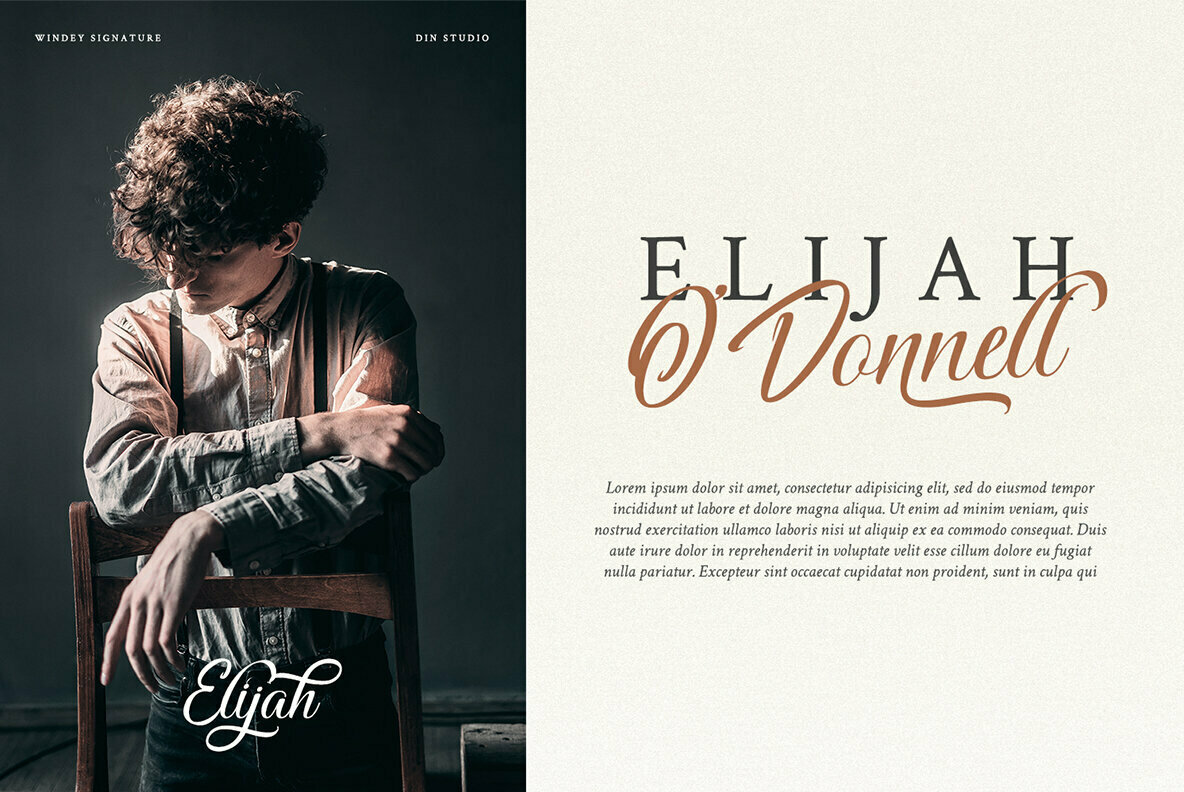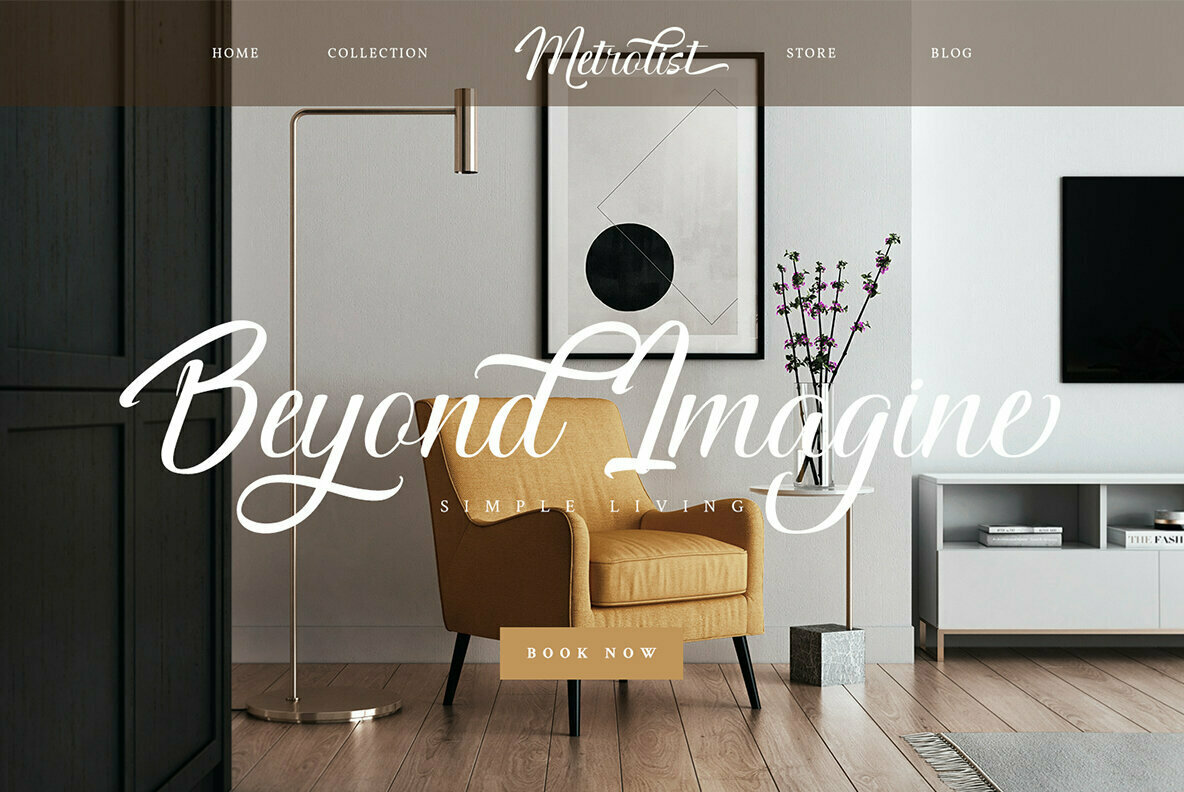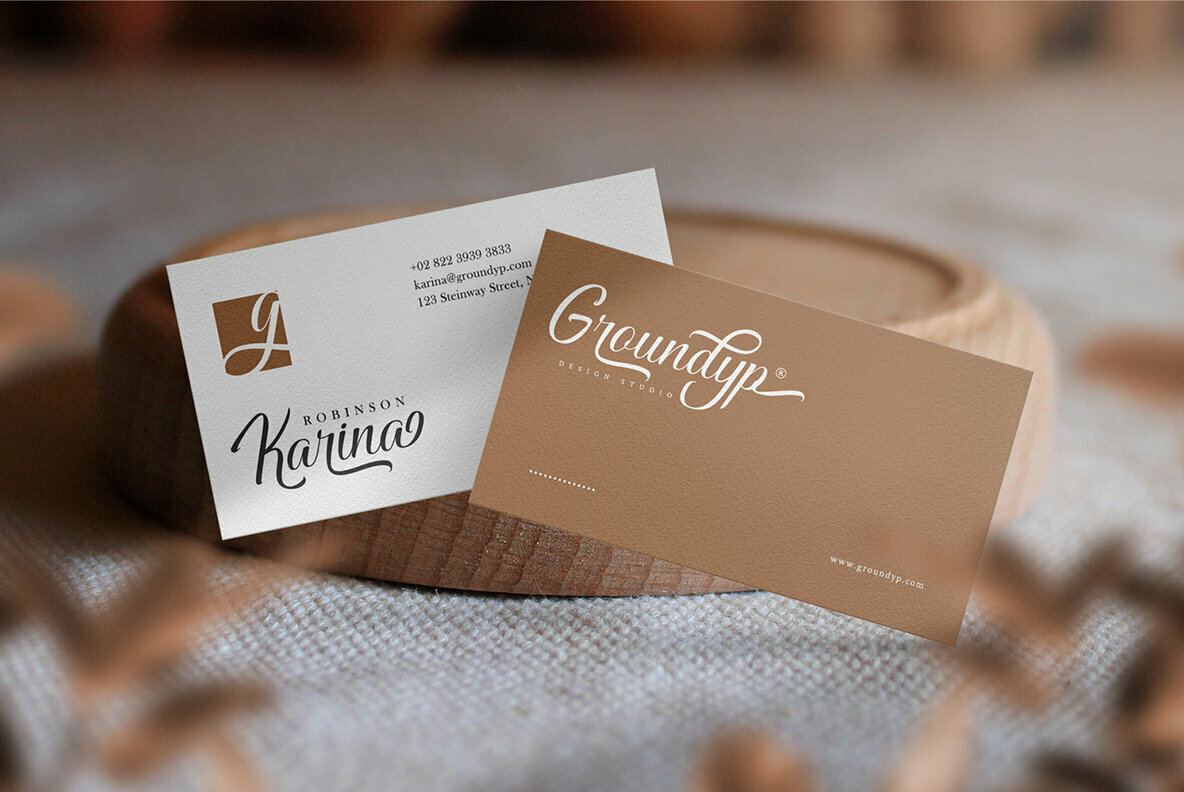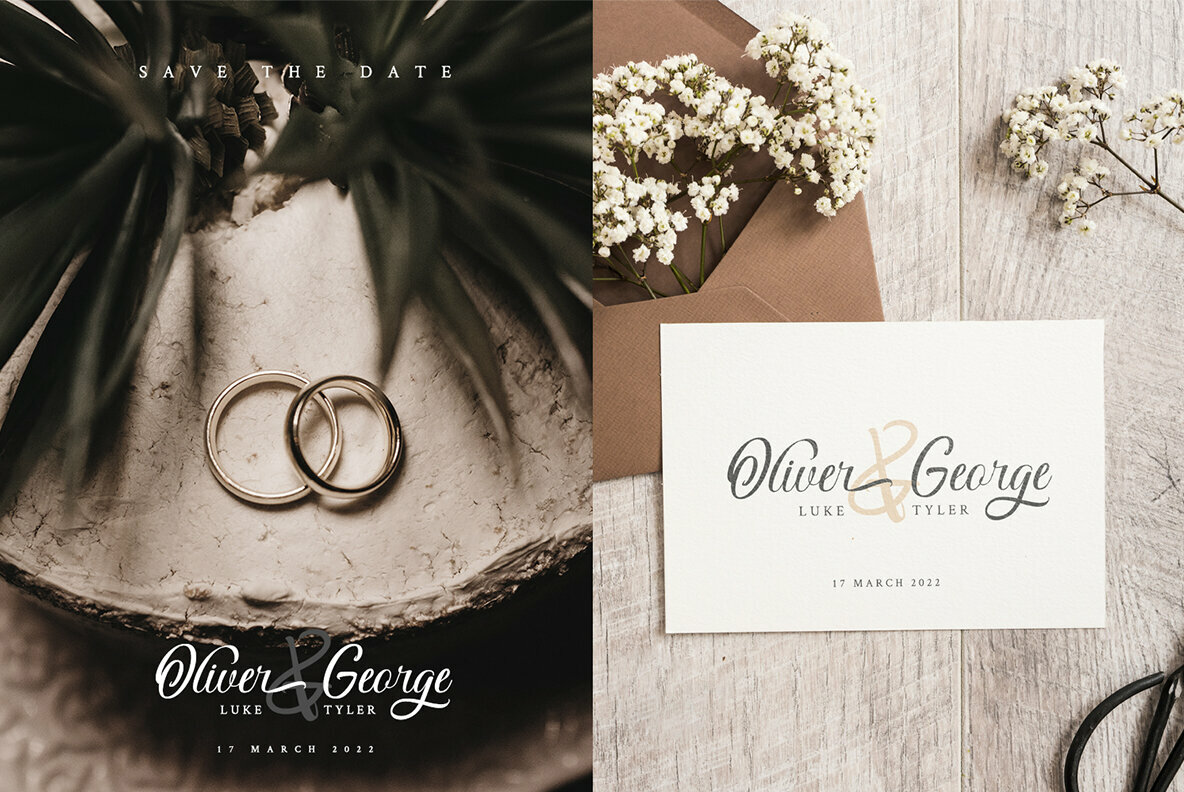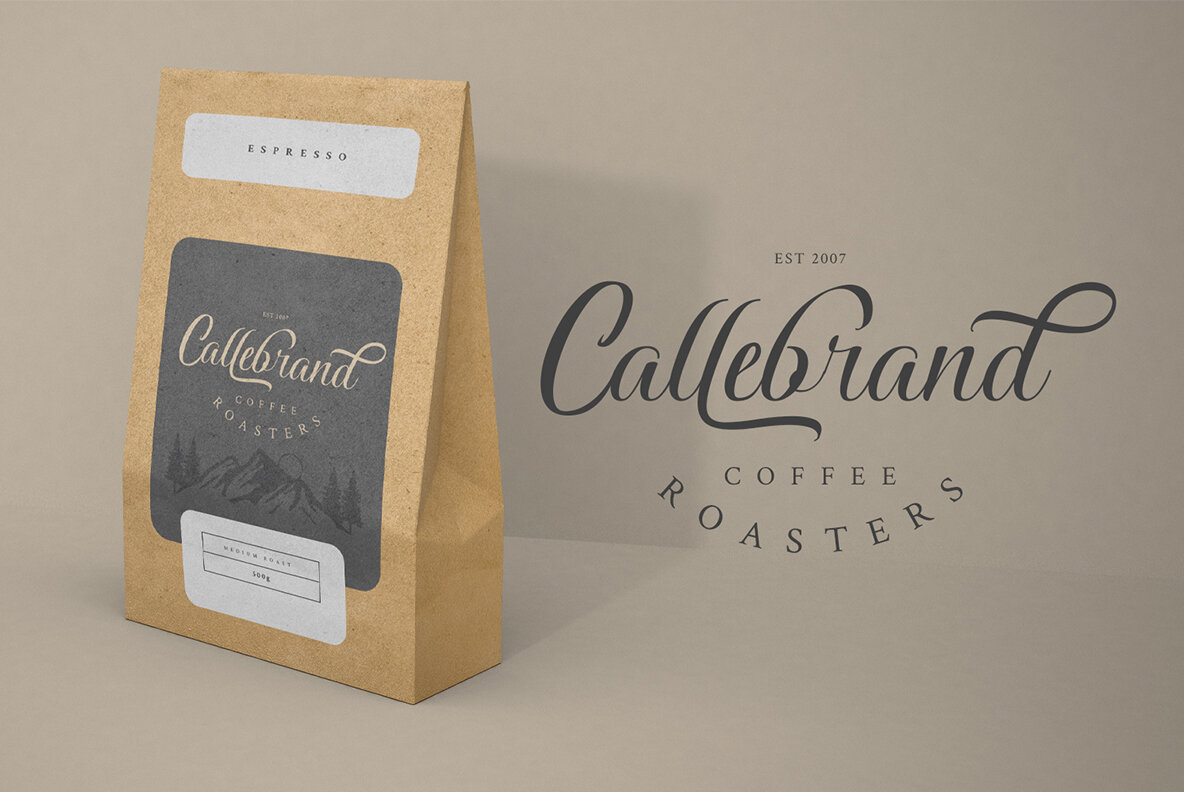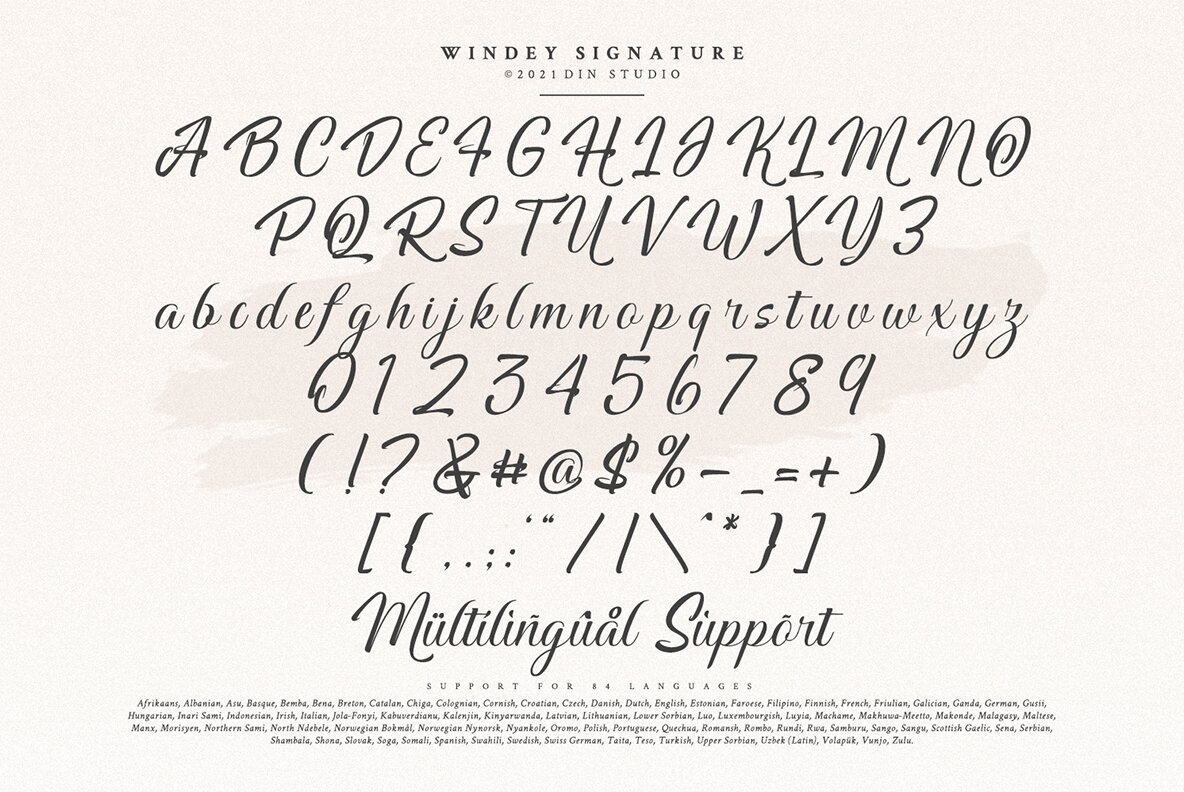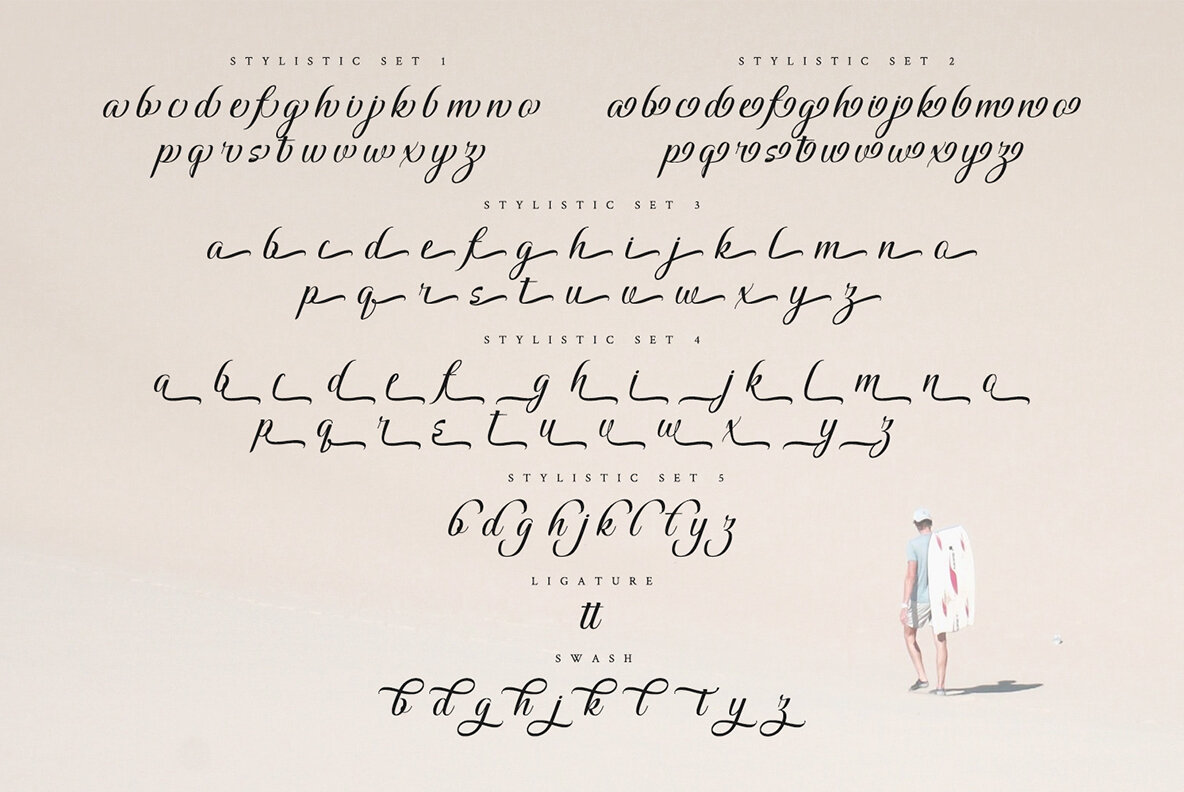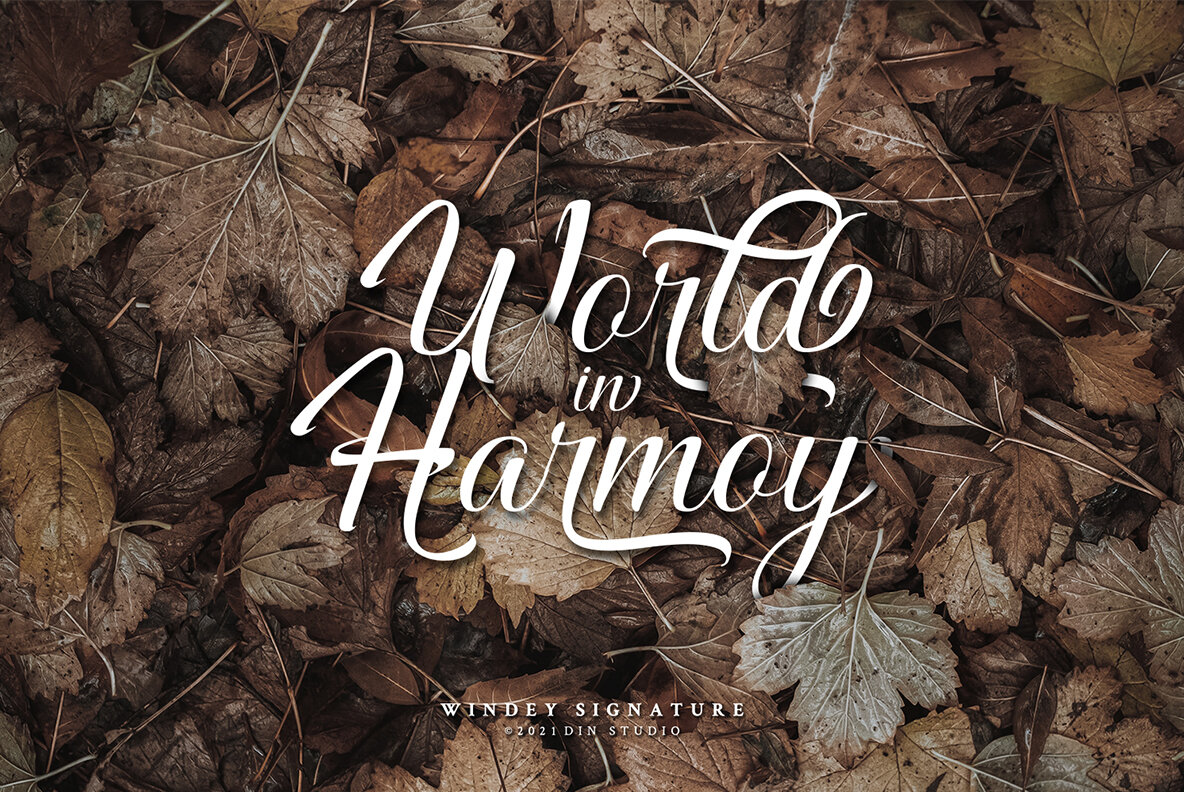
Windey Signature Font
Windey Signature
Embrace the refined blend of elegance and modernity with Windey Signature, a sophisticated script font designed to enhance your branding projects. This font's clean, script-like design and subtle curved indentations make it an excellent choice for a wide array of applications. Whether you're working on headings, logos, business cards, or printed quotes, Windey Signature provides a versatile yet striking option for any creative endeavor. Consider it for invitations, packaging, and your online presence, seamlessly incorporating a touch of class into your designs. Windey Signature broadens its appeal with multilingual options, ensuring your branding remains globally relevant.Windey Signature: Elegance Redefined in Modern Script